Free Best Arabic Fonts 2024 with download links.📣
All fonts are beautifully crafted Arabic script font embodying all the aura and emotion of the sacred month of mercy. Arabic-style decorative font that captures the essence of Ramadan Islamic art or Middle Eastern culture. ❤️
Albaik Font
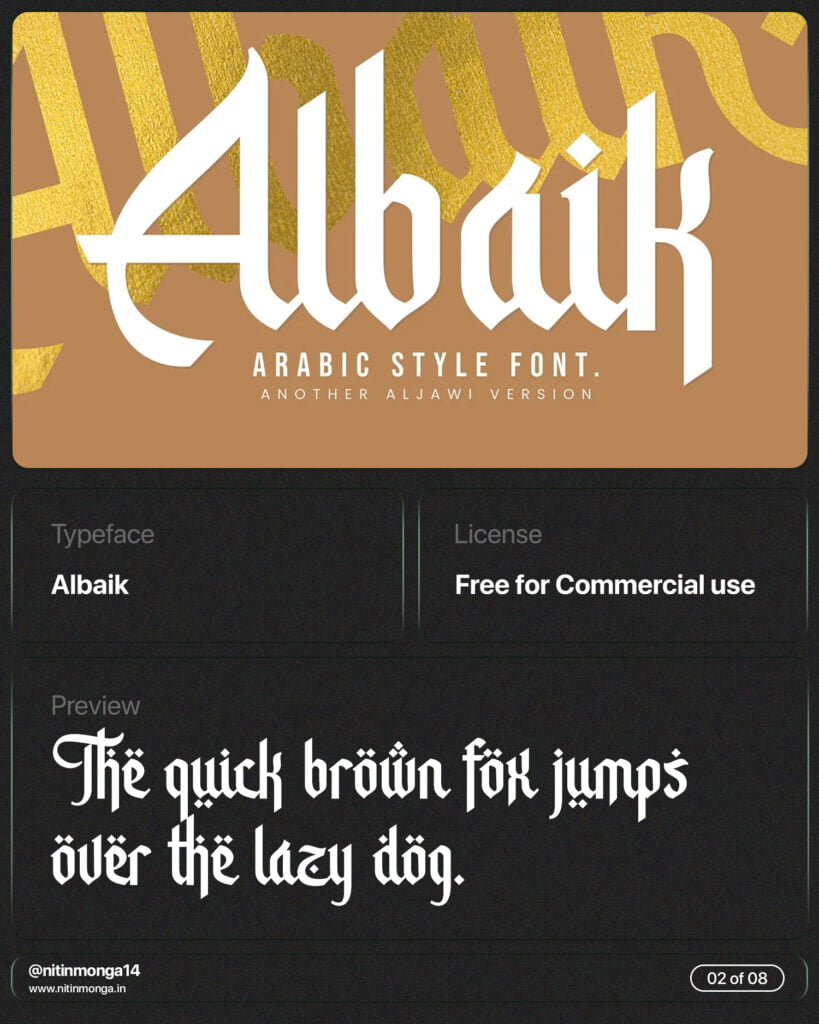
Bismillah Font
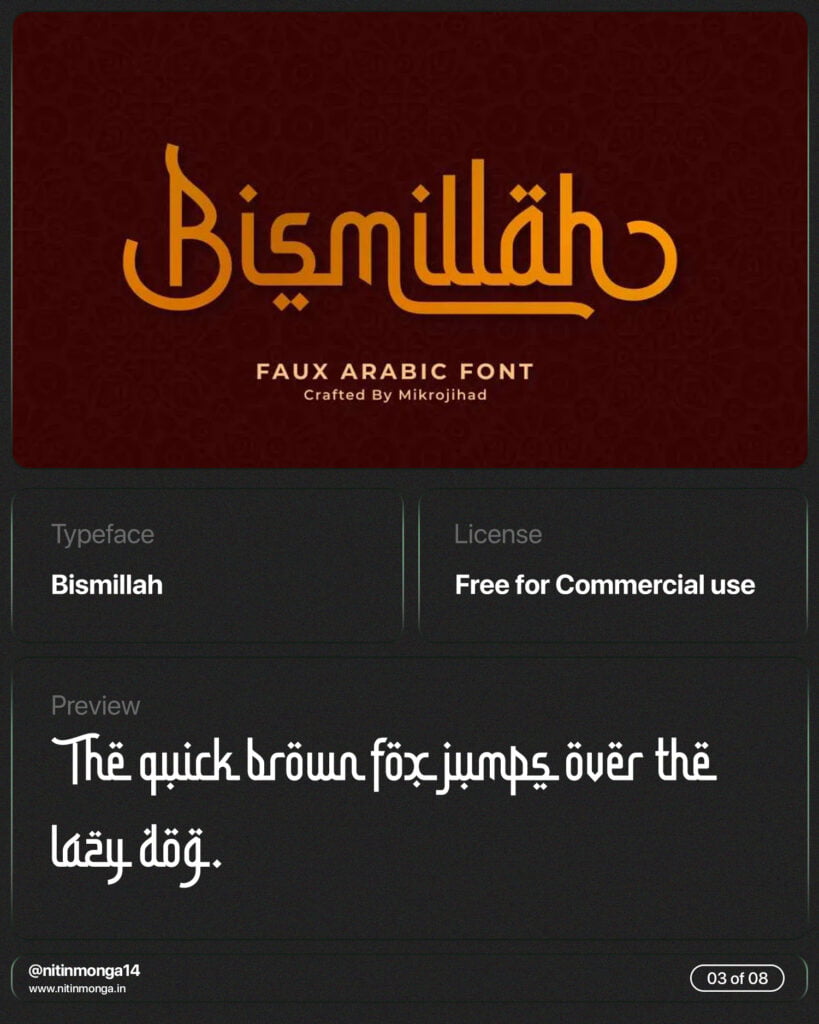
Mutiara Ramadhan Font
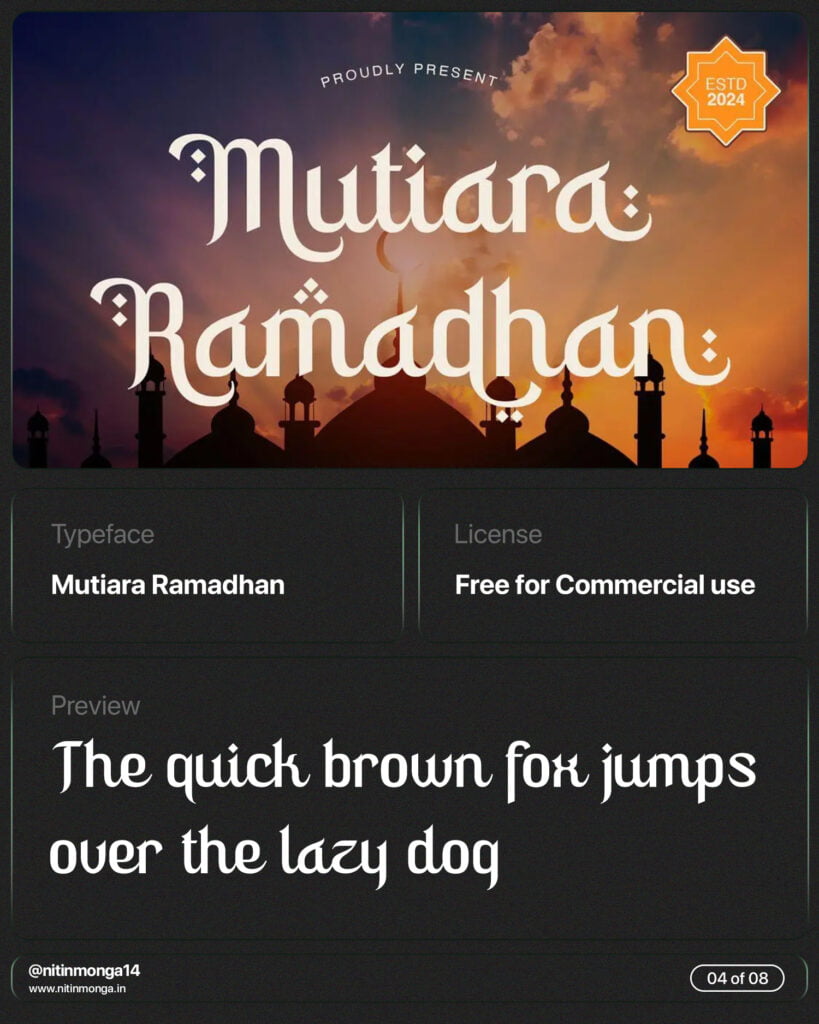
Rahmuna Font
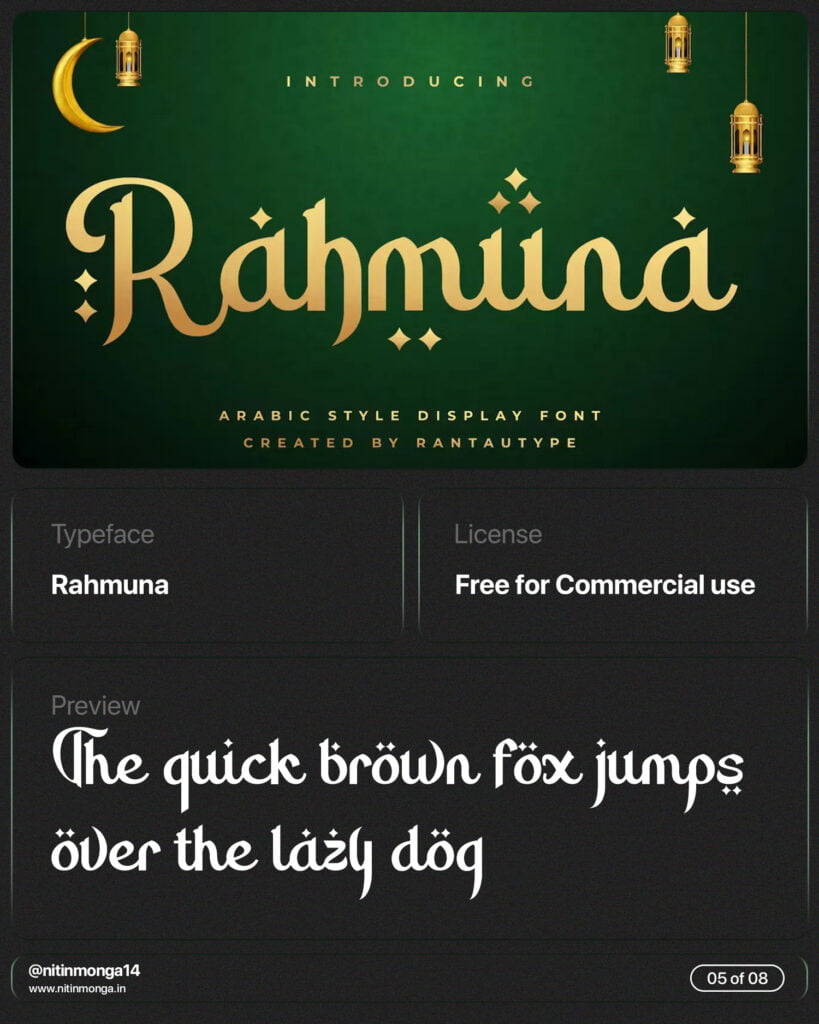
Sacred Ramadhan Font
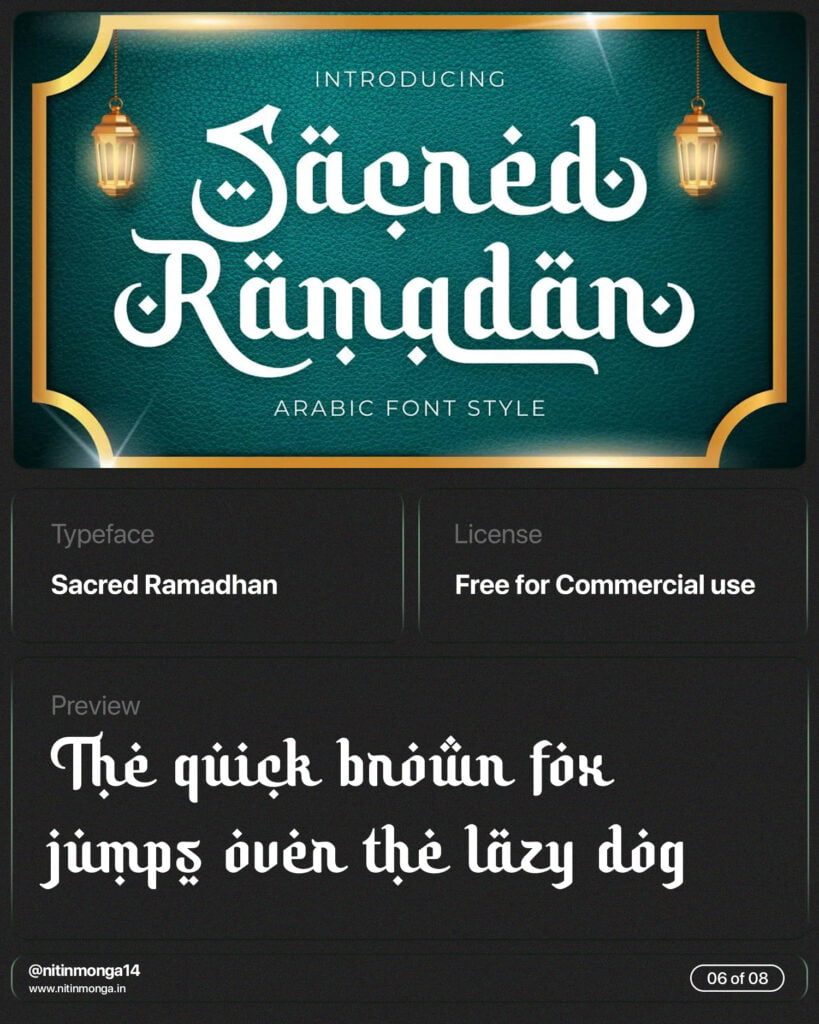
Yulltan Font